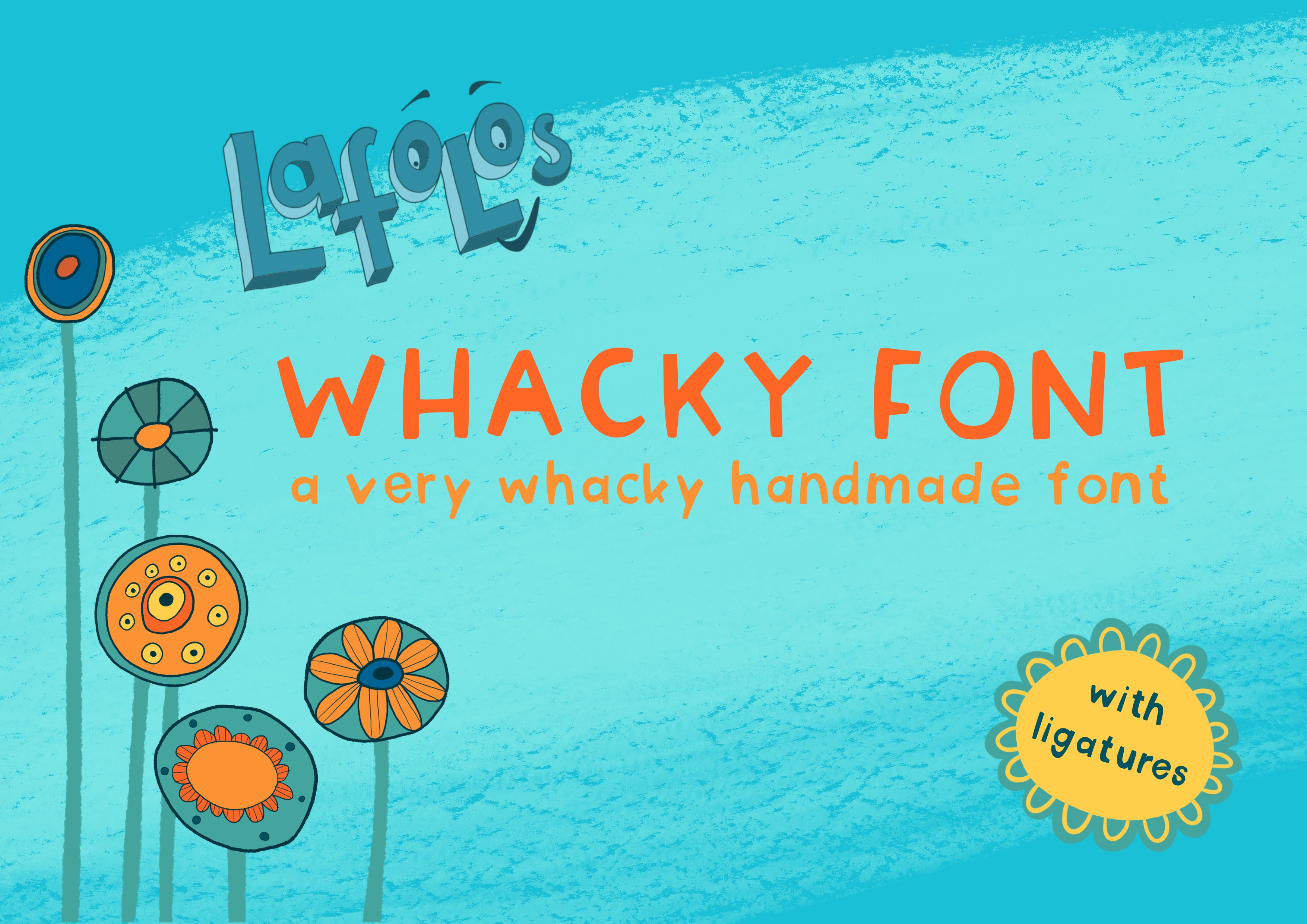
LAFOLOs Whacky Font
LAFOLOs Whacky Font: Including off, ttf and woff with the most common ligatures.
Use the font to create individual designs for headlines in chapter books, greeting cards, notebooks, stickers and so much more.